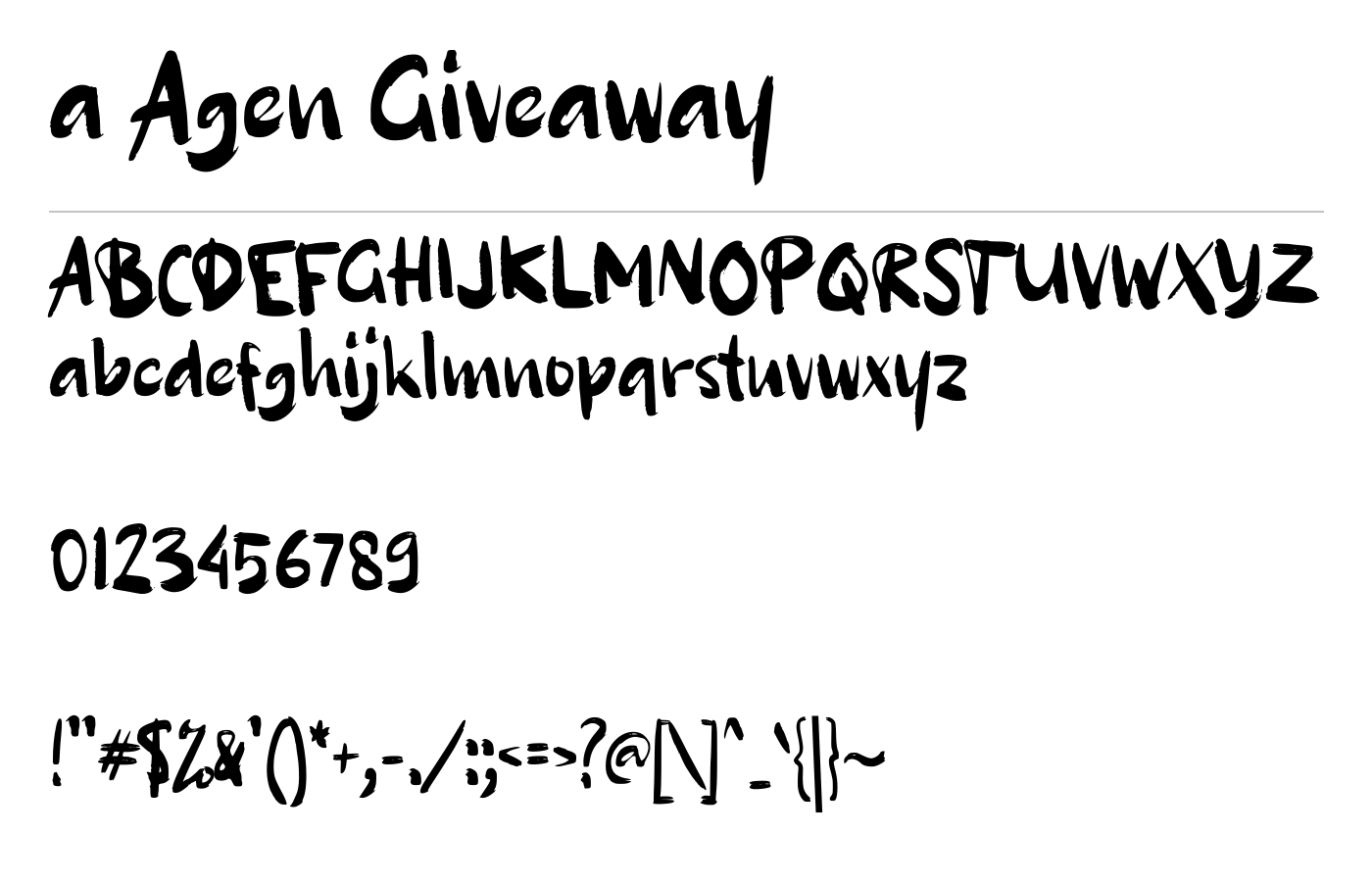
Agen Giveaway is a playful, hand-drawn sans serif font with a bold weight and irregular, brush-style strokes that give it a casual, energetic feel. Its lively, uneven letterforms and strong personality make it ideal for creative designs, informal branding, and eye-catching headlines. This font works well for projects seeking a fun, approachable vibe with a handmade touch.
a Agen Giveaway Font
About a Agen Giveaway Font